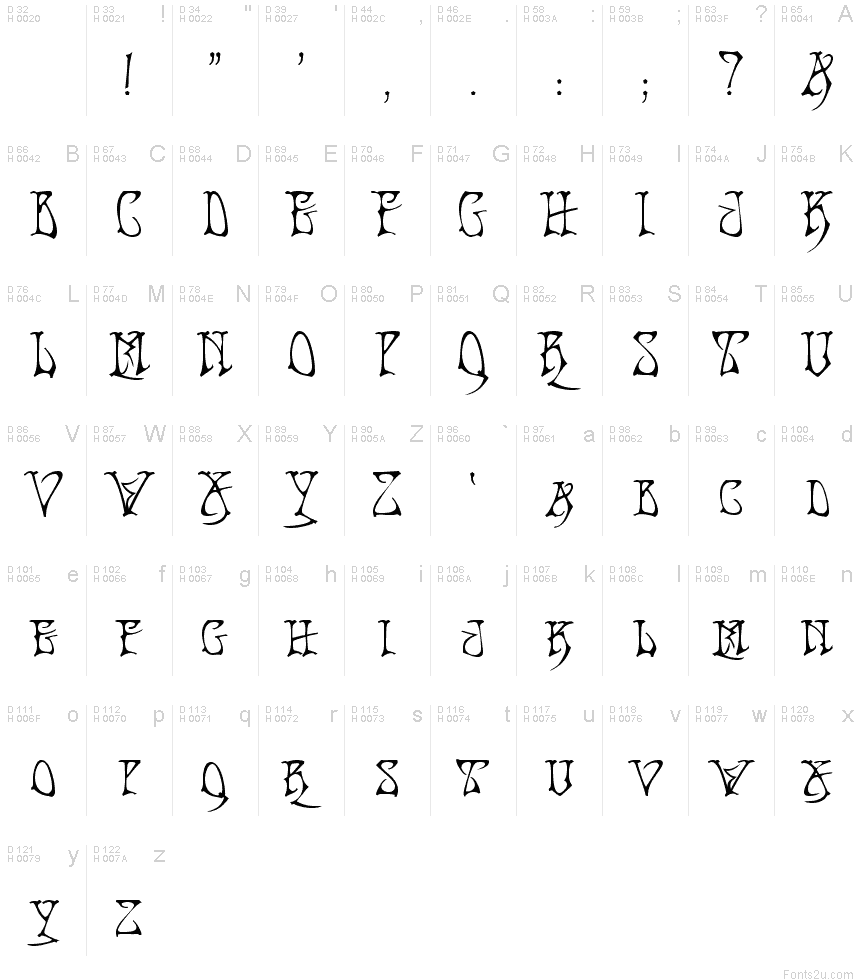
BadAcid
BadAcid font by David F. Nalle is a free scary display font with a wiry, blackletter-meets-poisoned-vine look. Its strokes twist into sharp hooks and clawed curves, giving every word that scratchy, hand-inked menace you want when clean horror fonts feel too tame.
Using BadAcid works beautifully for haunted event posters, metal flyers, Halloween invites, occult book covers, dungeon-game titles, creepy merch, and tattoo-style logos. This free font wants room to snarl, so keep it large and pair it with a plain sans serif when you need body copy.